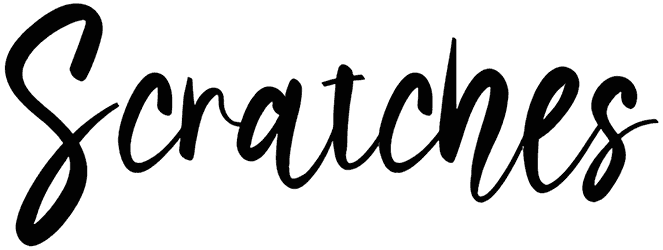
Scratches Font
If your goal is to beat your competitors, the Scratches font gives you a unique opportunity. This script font has a charismatic personality, and you may use it for various cases, such as postcards, business cards, and magazines.
Besides, the Scratches font’s letters have an elegant design with a curvy form, giving your audience a memorable experience. So give this handwritten font a try and check our library for more practical freebies like this.